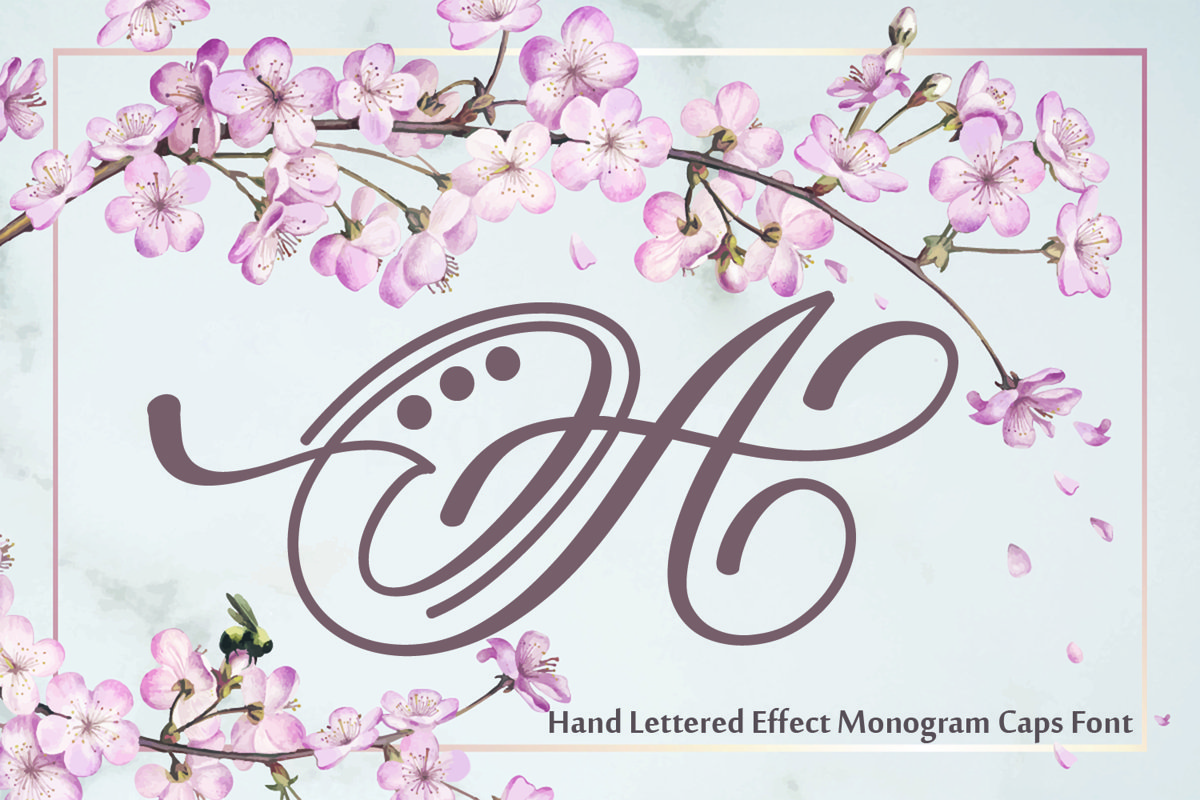
Hand Lettered Effect Monogram
Monogram Caps Font
Now comes the latest monogram, this font is designed in handwriting, the style of writing is very natural. Fall in love with an authentic feel and use it to create beautiful wedding invitations, beautiful artwork, interesting social media posts, and funny greeting cards.